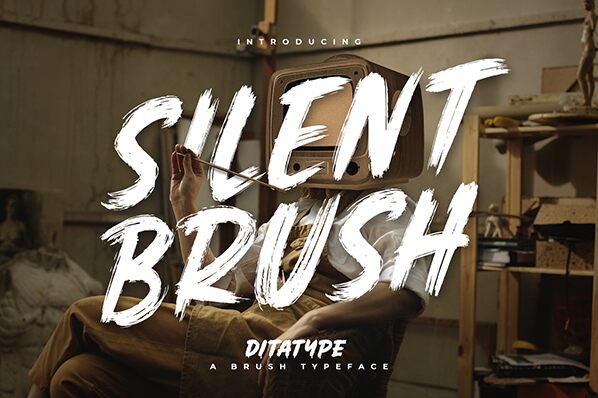
Silent Brush
Silent Brush, a bold and expressive brush font created by Ditatype, exudes an intriguing blend of elegance and raw energy. The fluid, dynamic strokes captivate with their organic, hand-crafted aesthetic, conveying a sense of effortless artistry. This font's distinctive character shines through in its striking letterforms, where each curve and flourish reflects the artist's confident, sure-handed touch. Silent Brush's bold presence commands attention, making it a compelling choice for branding, headlines, and impactful typographic designs.
Versatile and adaptable, Silent Brush's distinctive style lends itself seamlessly to a diverse range of applications. From editorial layouts and packaging designs to promotional materials and signage, this font's bold, expressive personality can elevate the visual impact of any project. Its robust construction ensures legibility even at larger sizes, making it an excellent selection for attention-grabbing headlines and eye-catching displays.